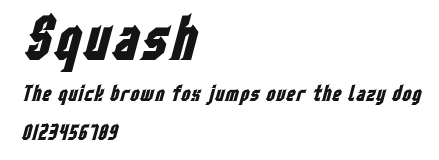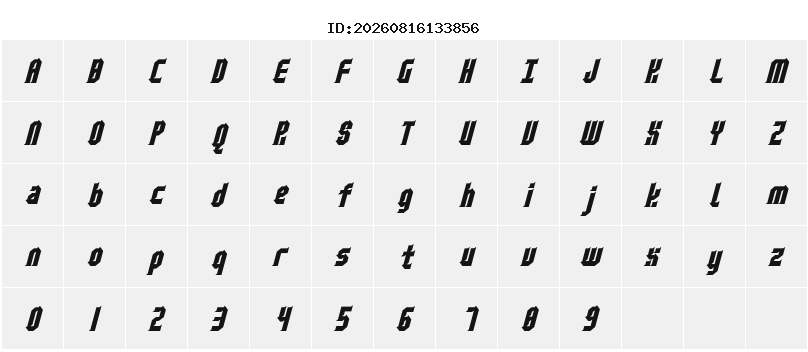
Squash Preview
• Font Name: Squash
About Squash.ttf
Squash.ttf is a modern, elegant sans-serif font designed for ultimate readability and visual harmony. Perfect for branding, headlines, web design, and print materials.